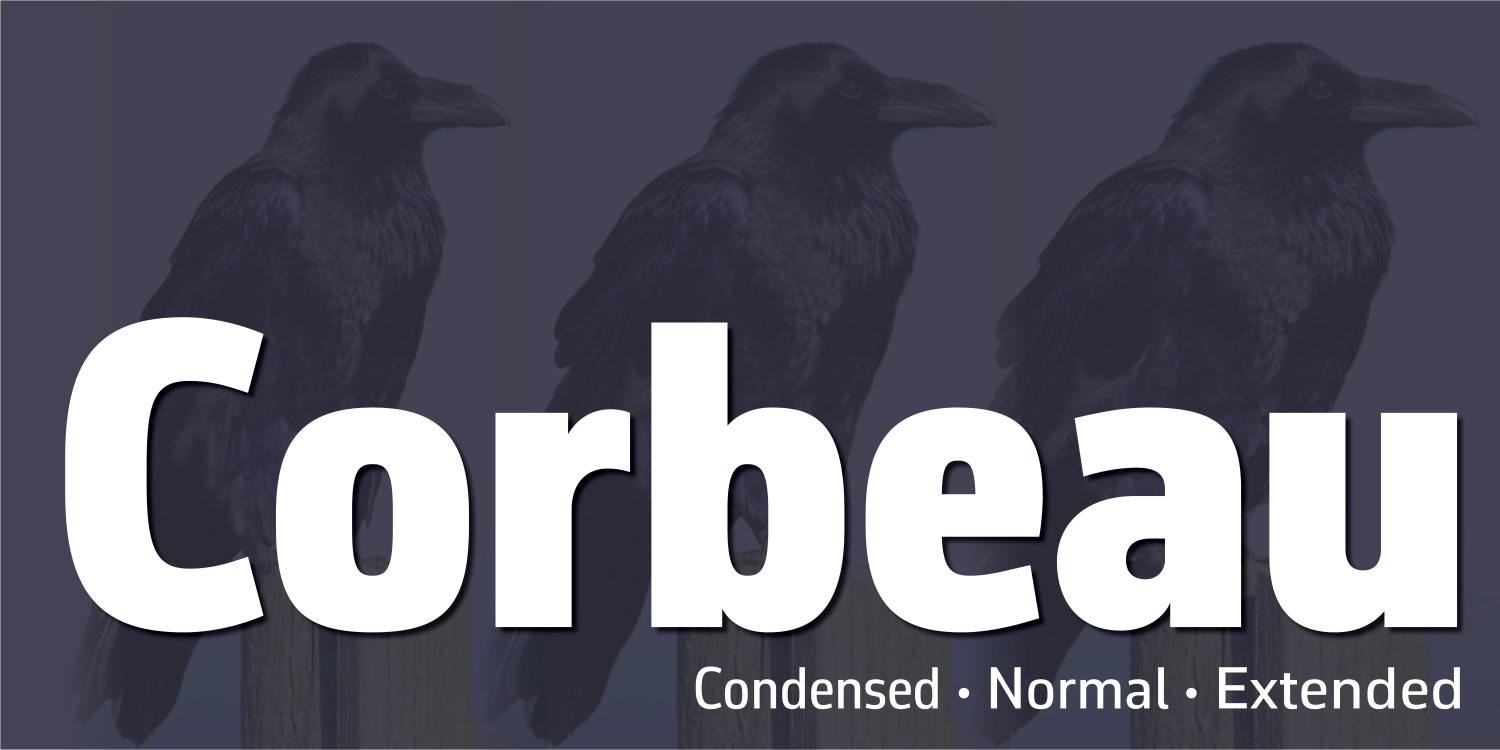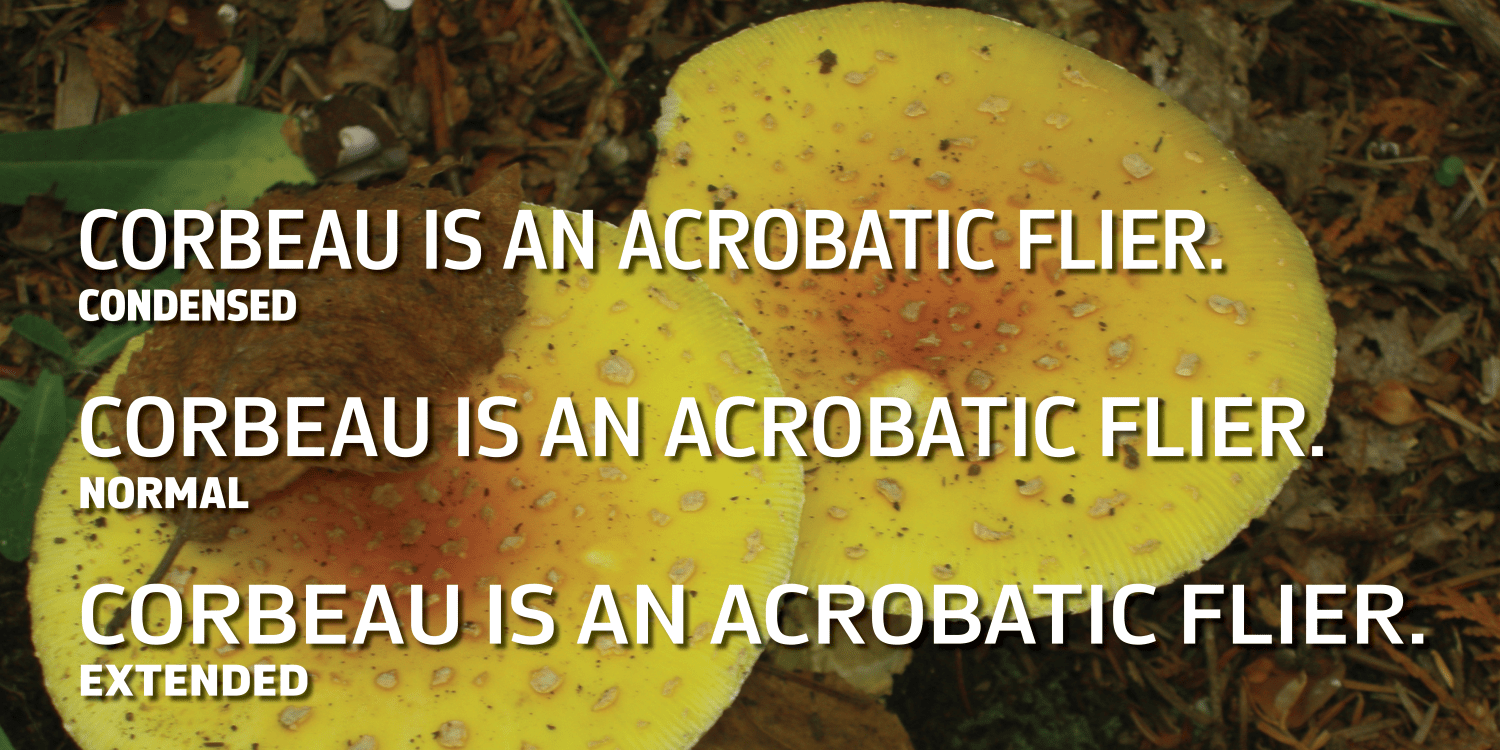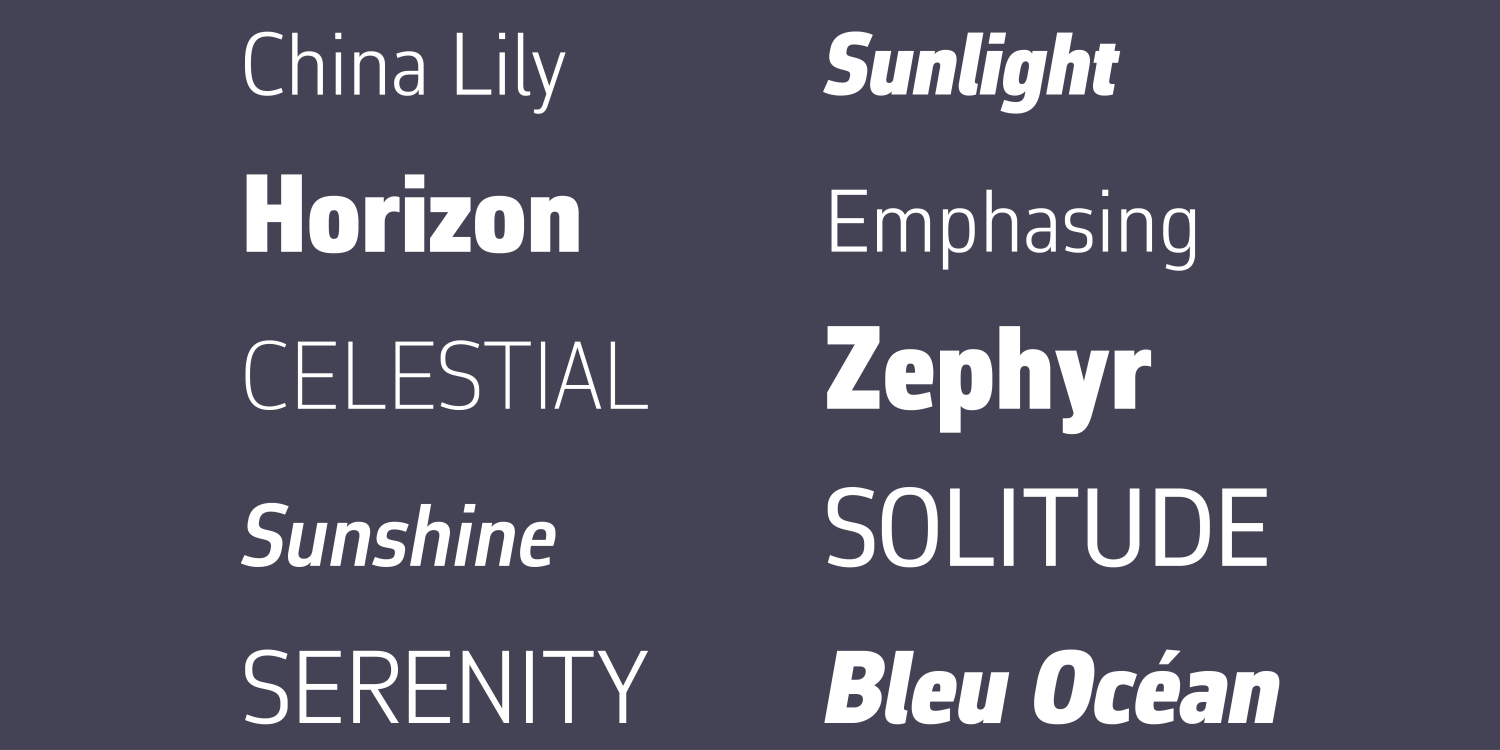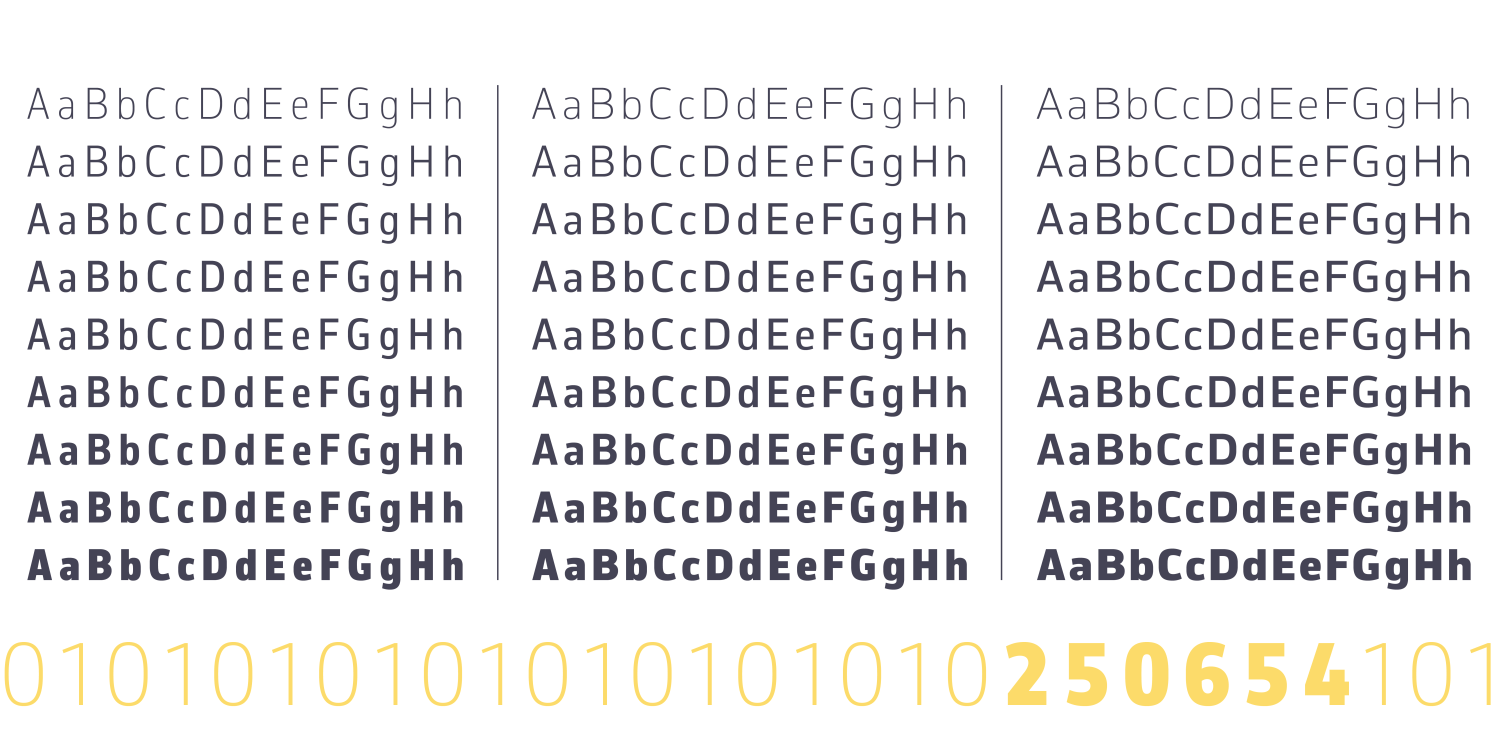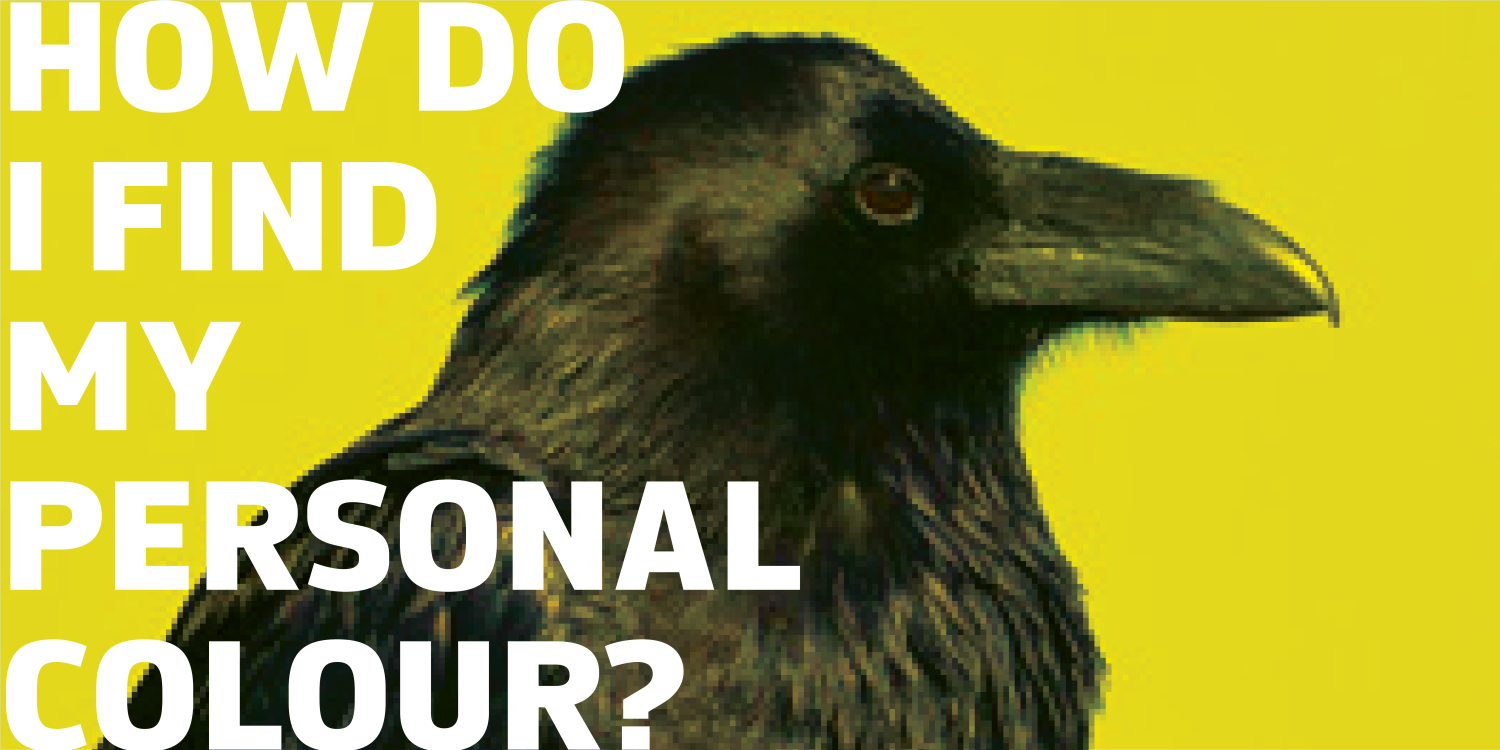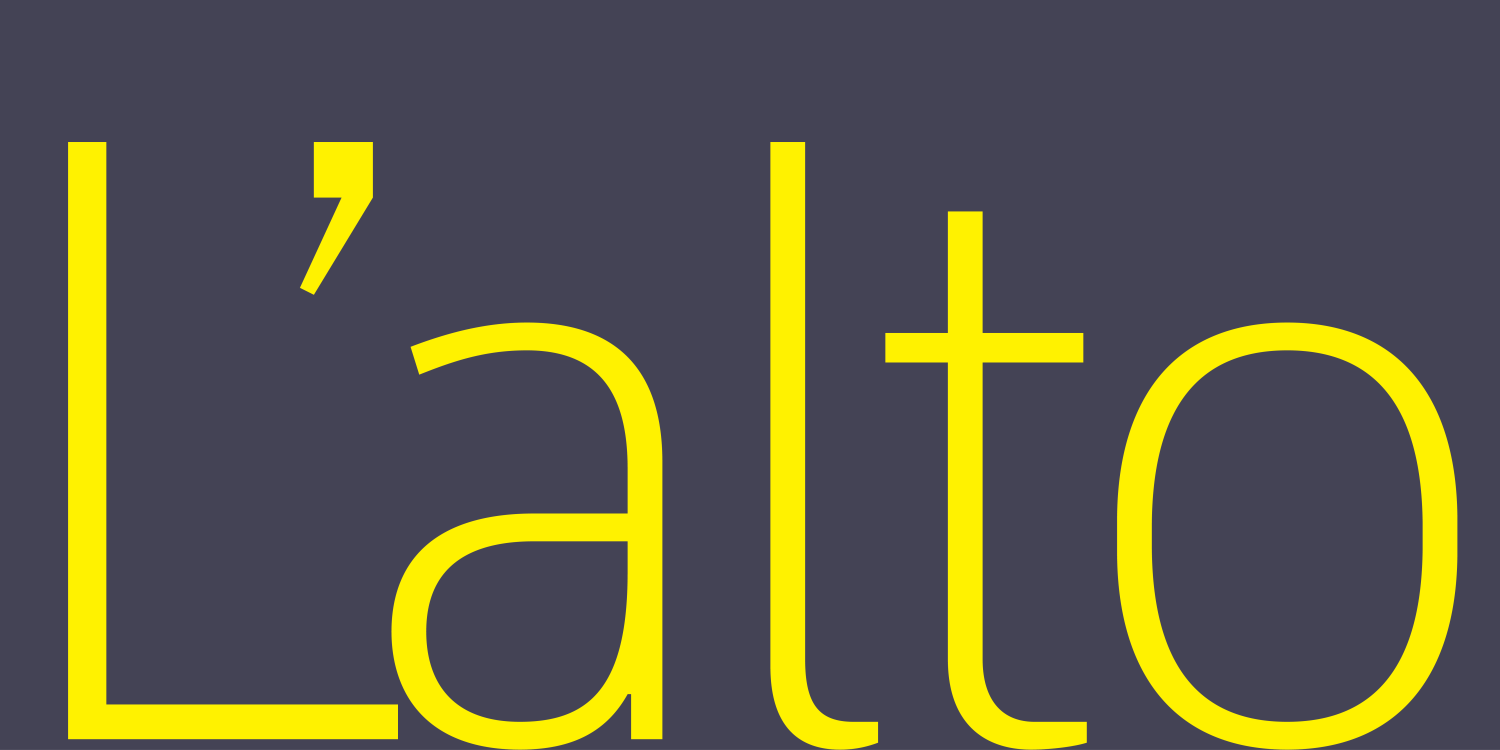
Corbeau Pro
Font Family by André Simard
Corbeau, designed by André Simard, is a sans serif typefaces. Integrating gentle curves into an overall program of squarish forms, André Simard has drawn on the lessons of predecessors such as Eurostile and FF Meta to arrive at Corbeau’s fully contemporary design. The design is precise and approachable, and in keeping with the geometry of the roman, a slanted roman is partnered to it.
The result is an open, uncomplicated typeface that is easy to use for everyday typography of all kinds. The generous range of weights and the proportions and details of its several widths give Corbeau an impressive efficiency in text settings and a commanding presence in display.
The Corbeau typeface if offered with three widths (Standard, Condensed, Extended) of 16 fonts each. For a total of 48 fonts. Which include Extended Western and Eastern European Characters, Smallcaps, Ligatures, Alternates, and more.